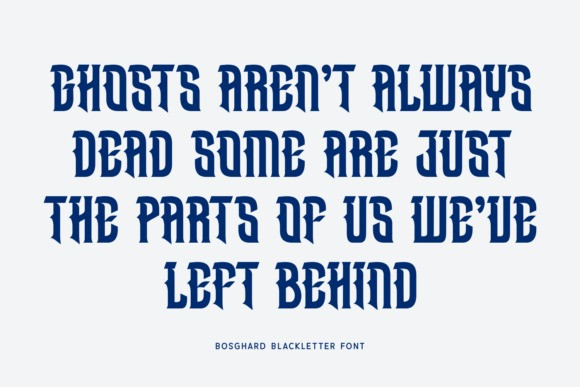
Bosghard Font
Bosghard Font, a modern blackletter typeface from the year 2025. This typeface offers a contemporary take on traditional gothic lettering, featuring bold, impactful forms and alternate characters, making it suitable for modern branding and headlines that require a touch of historical drama.